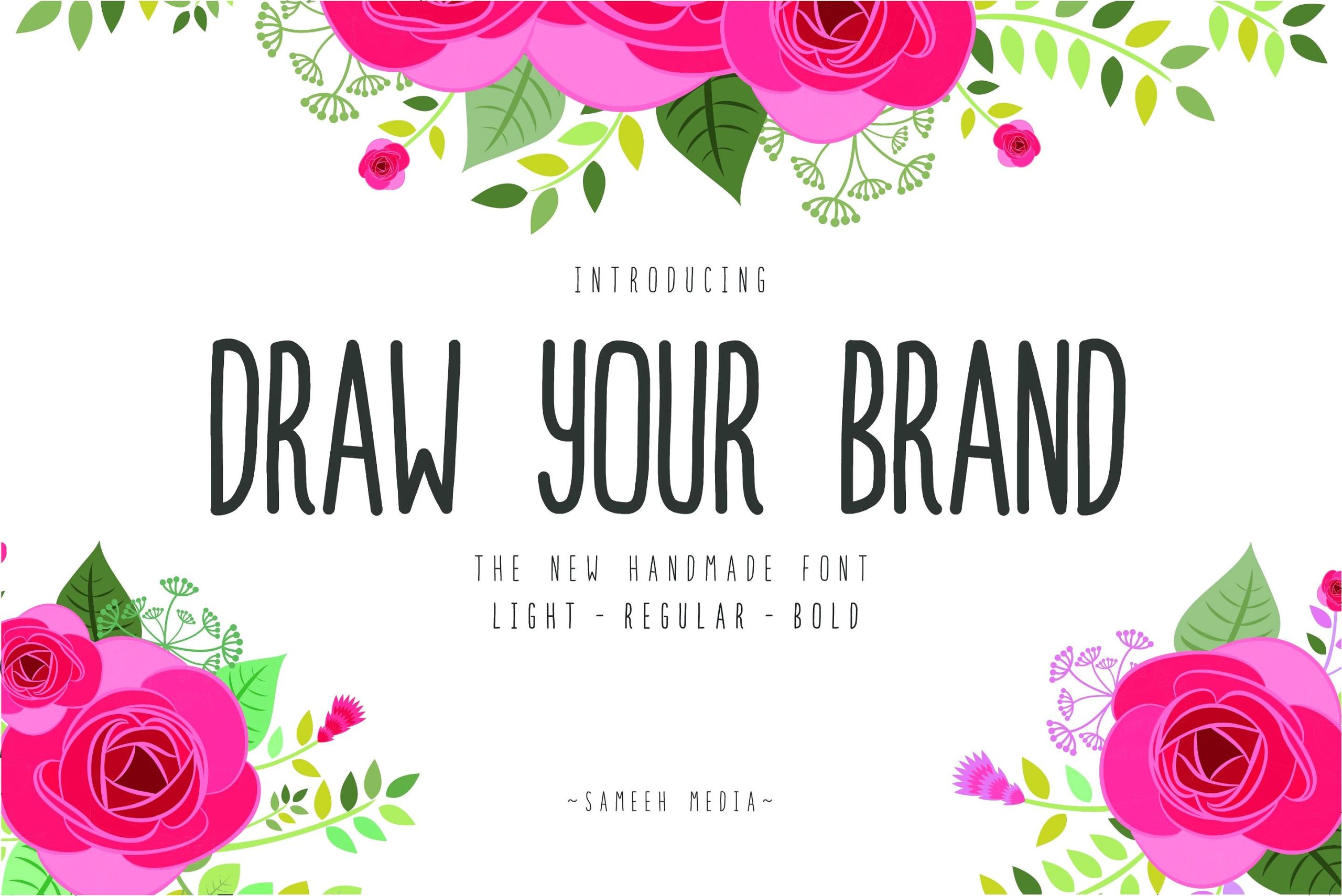
Draw Your Brand Font
Introducing Draw Your Brand Font! Draw Your Brand designed by Sameeh Store, this is a premium font, are sold on creativefabrica, but it was great, it is free today for download. Draw Your Brand is a hand-made marker pen font, designed to easily mix and match. This family allows you to create hand-lettered design in a blink of an eye.